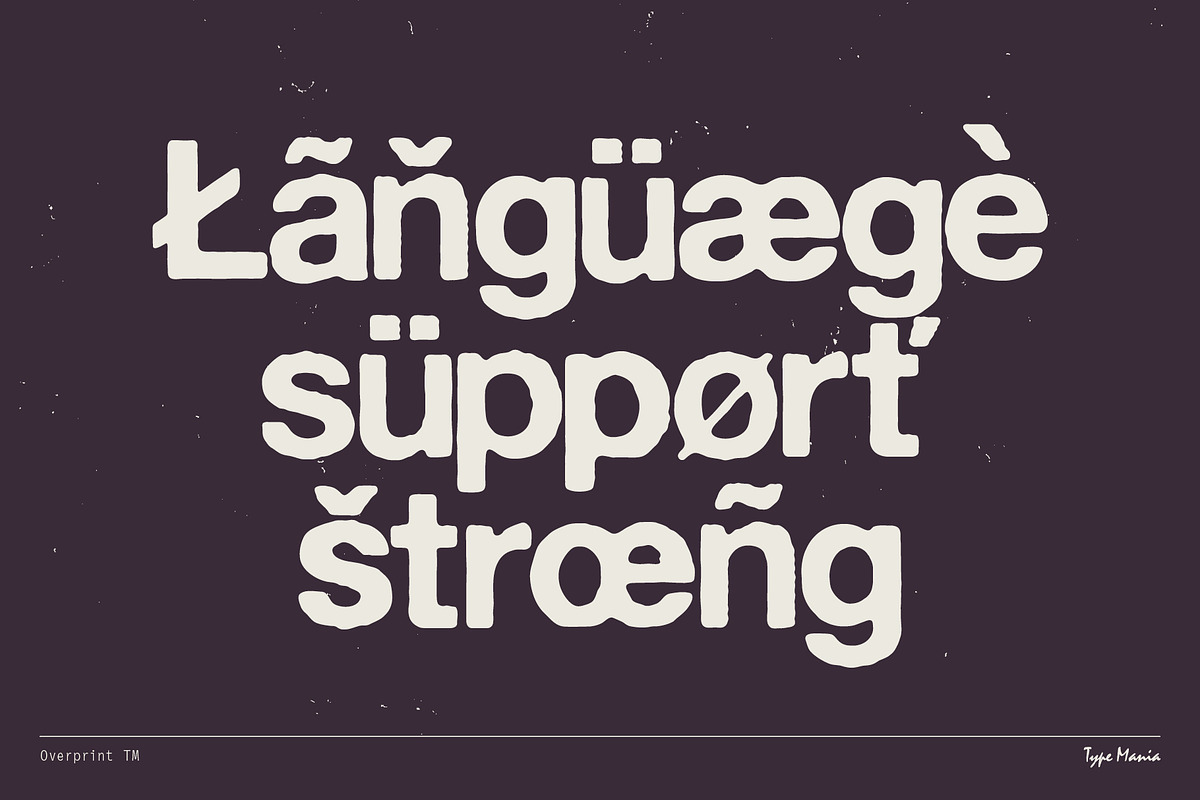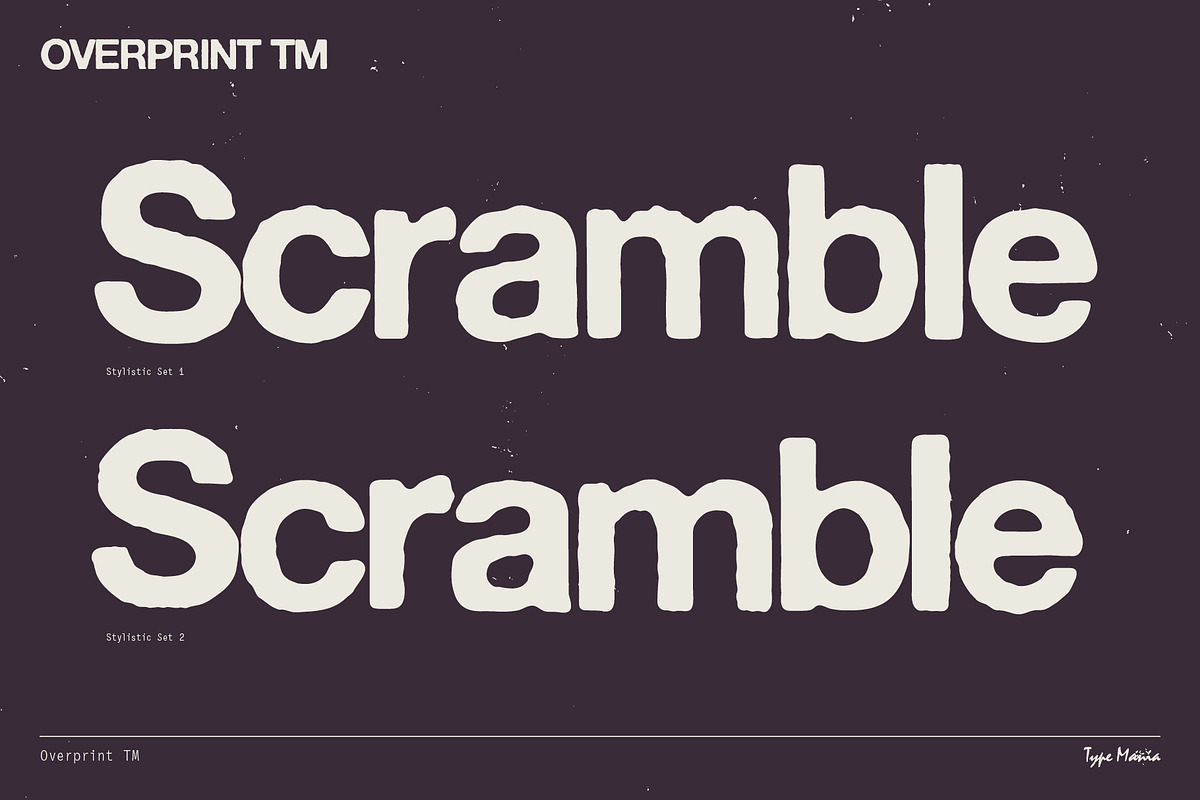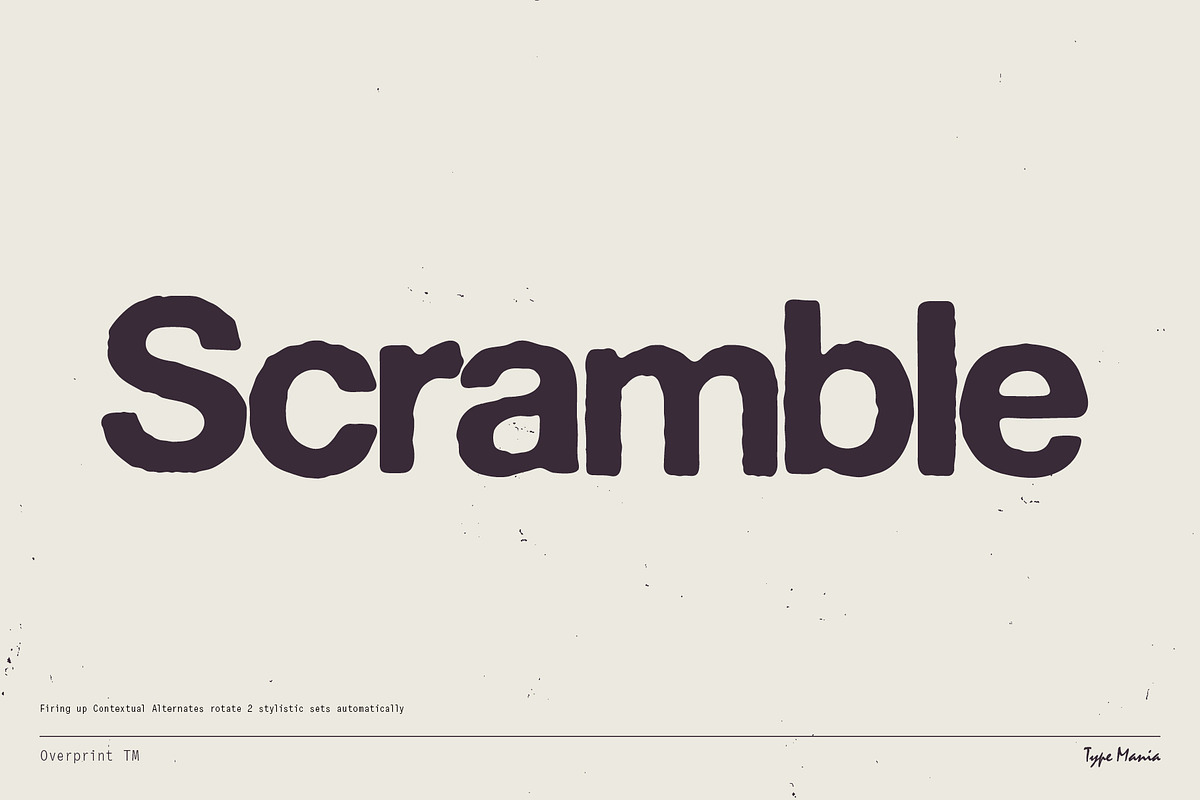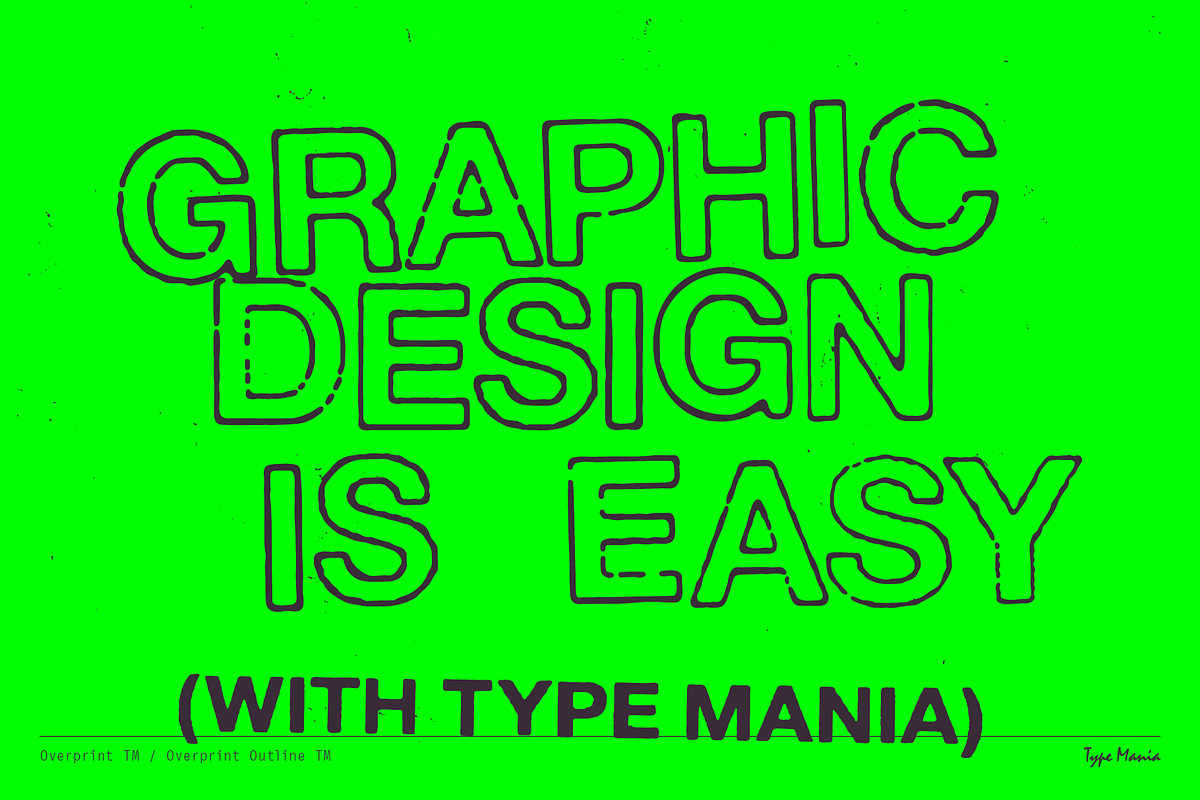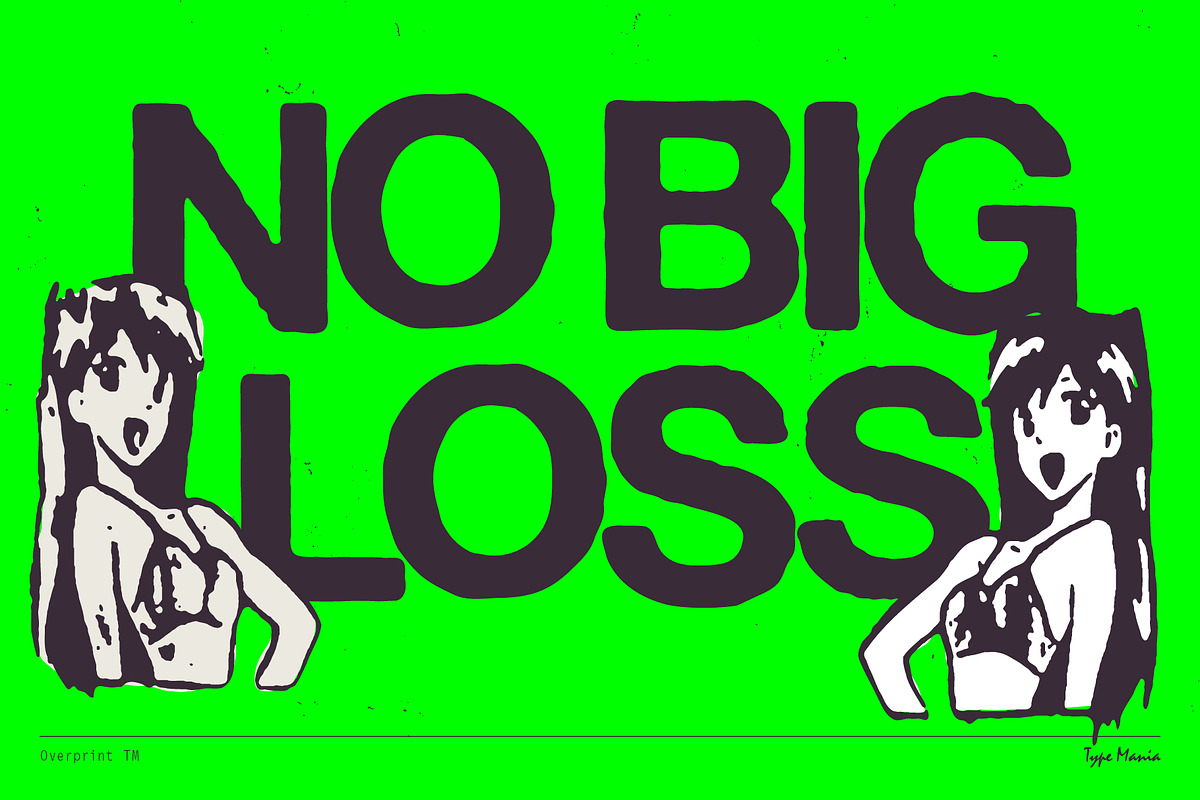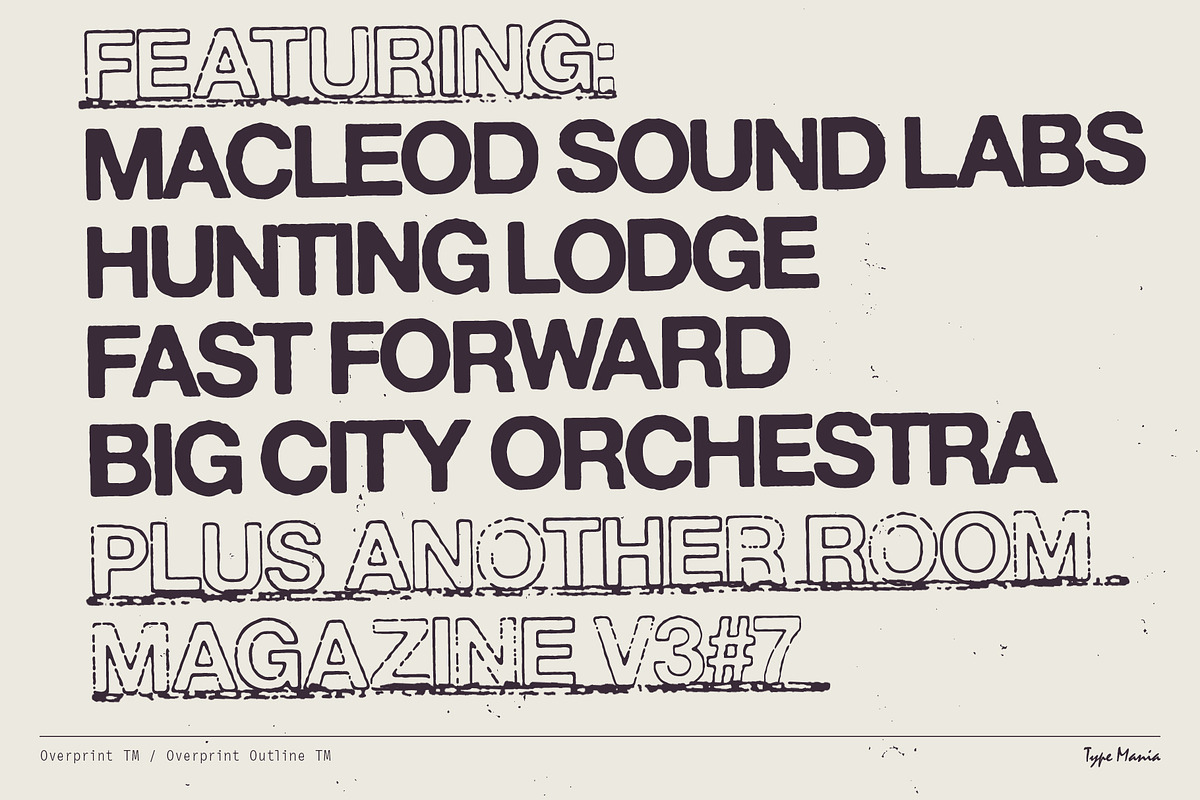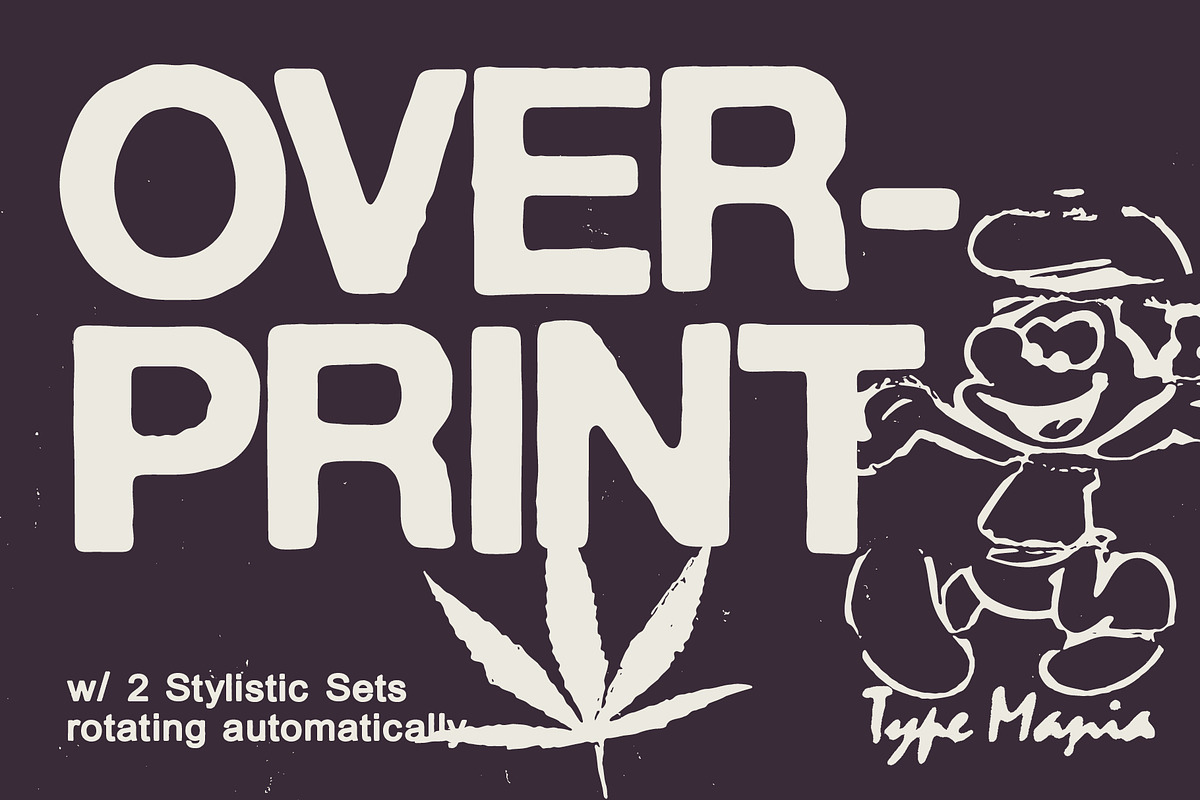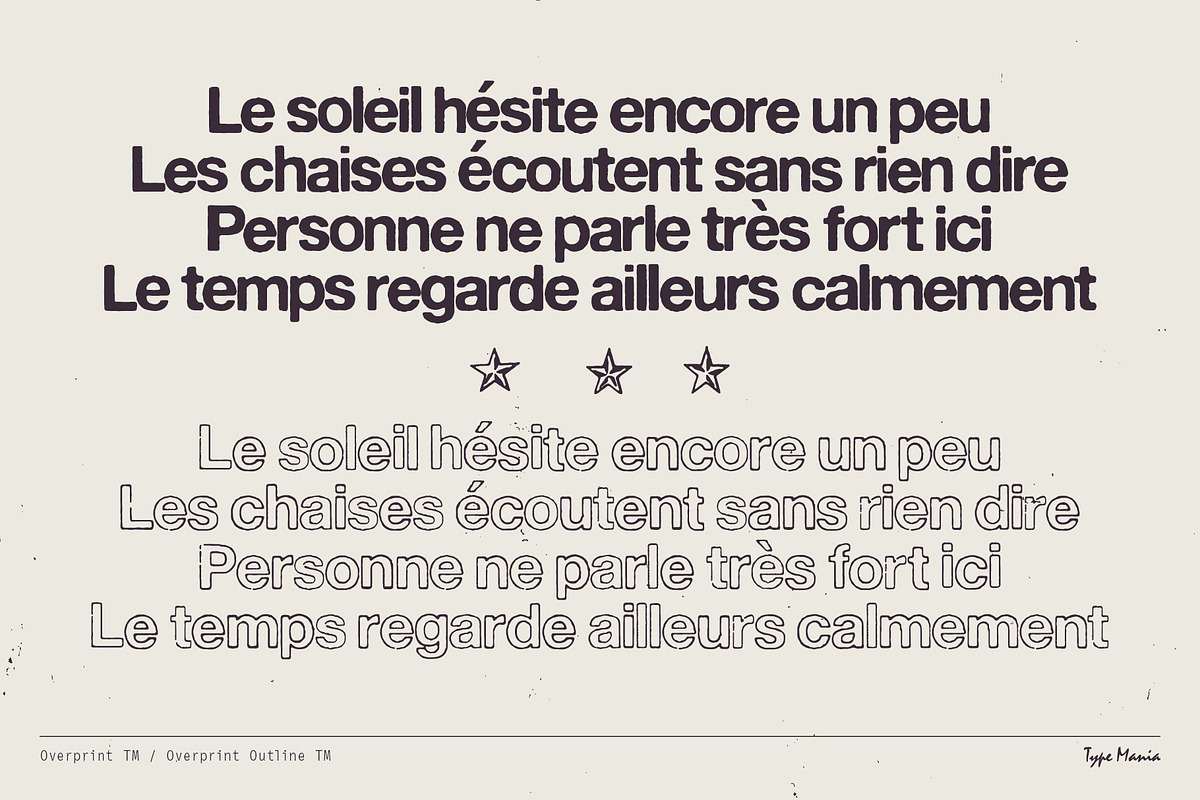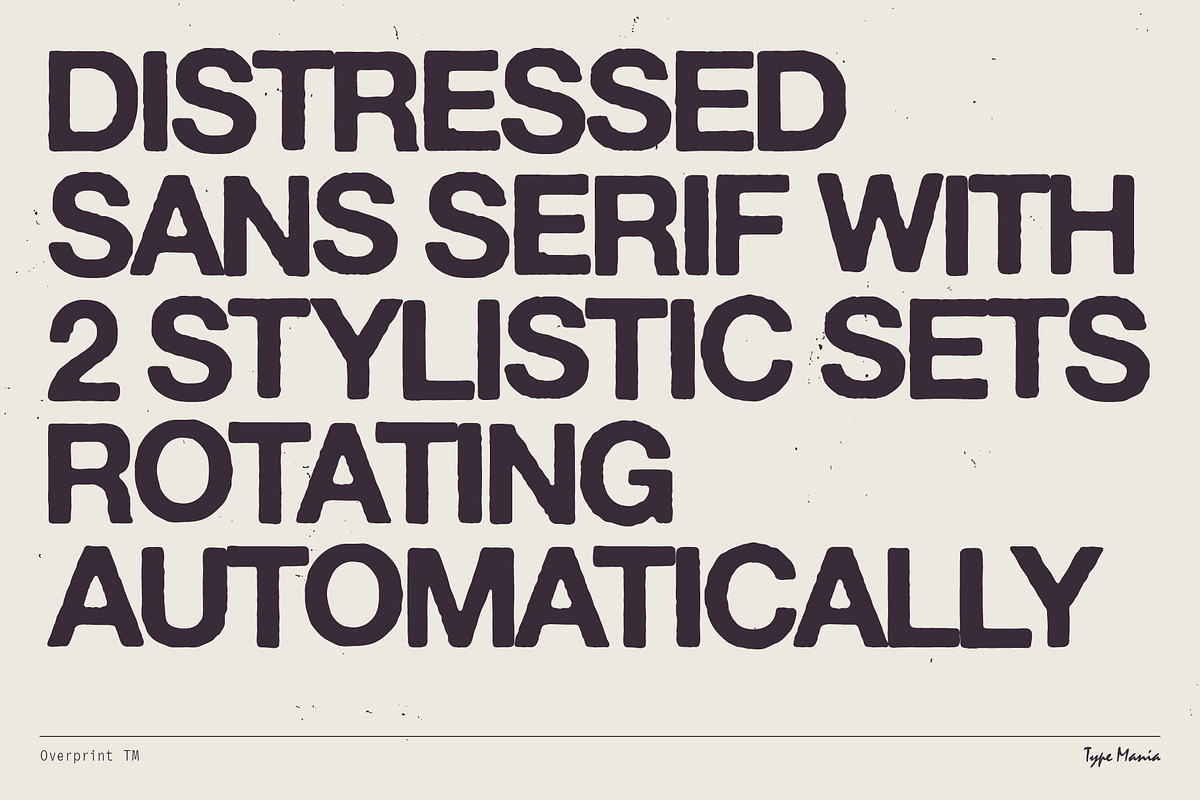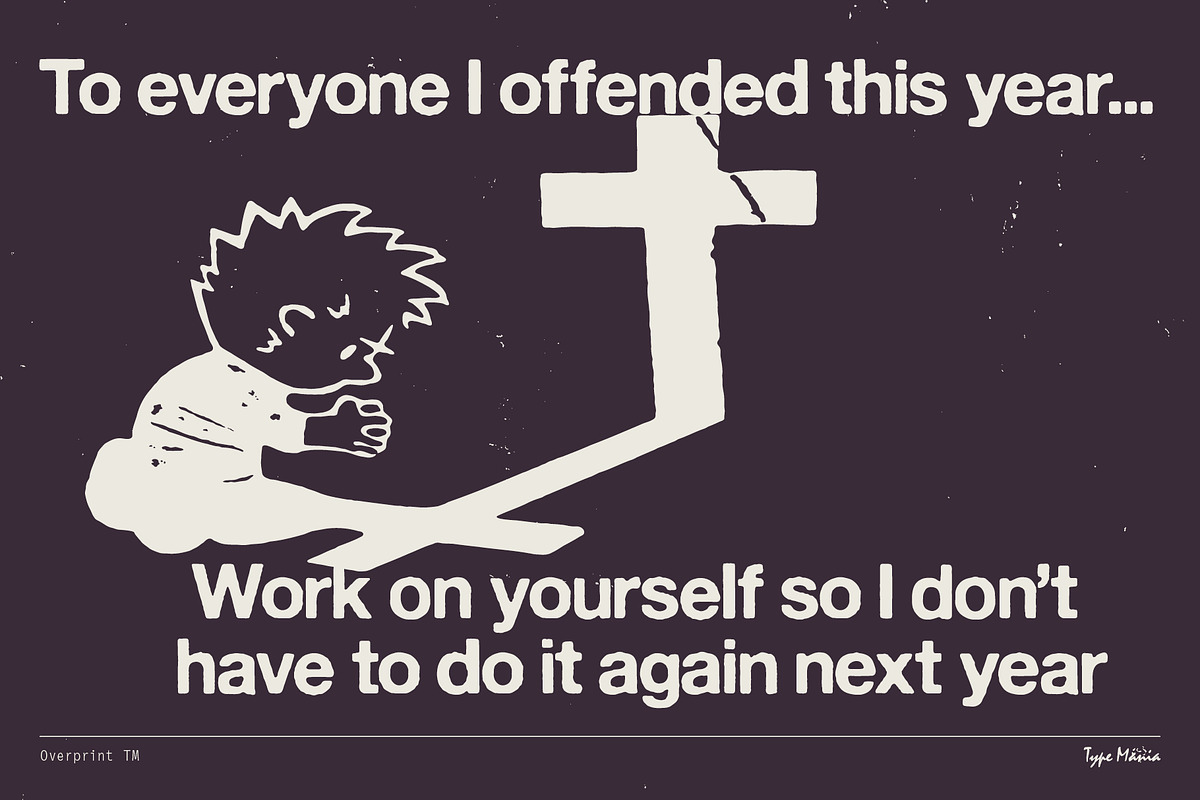
Overprint TM – Distressed Sans Serif
Overprint TM, a distressed typeface featuring uneven edges and a xeroxed finish. The two stylistic sets rotate automatically with contextual alternates turned on, introducing subtle imperfections across words.
OpenType features
- 2 stylistic sets
- The font is programmed to automatically shift between the stylistic sets
Languages
- Basic Latin
- Western European
- Euro
- Central European
- Pan African Latin